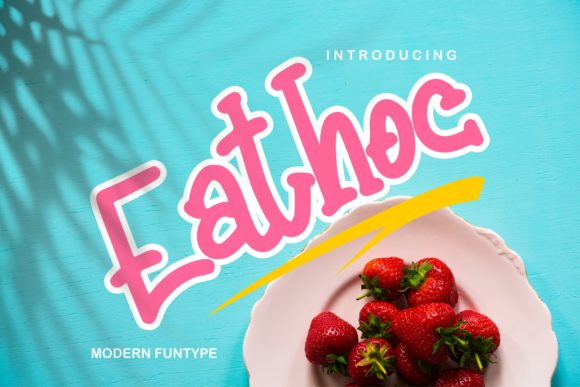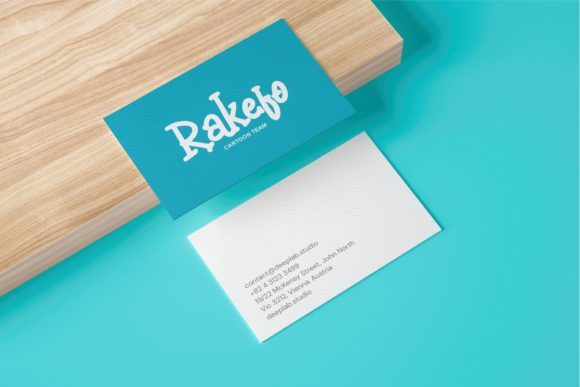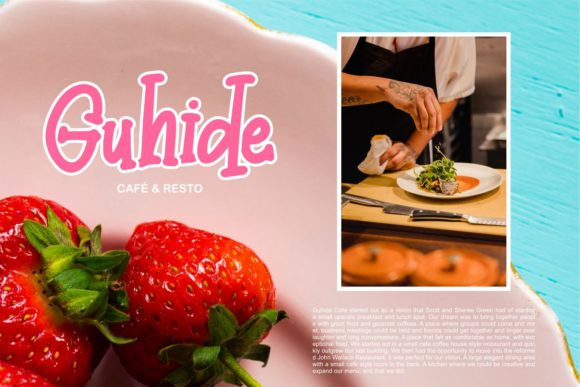
Eathoc Font
Eathoc is an incredibly unique and colorful serif font. It can easily be matched to an incredibly large set of projects, so add it to your creative ideas and notice how it makes them stand out!